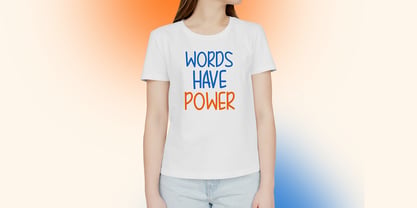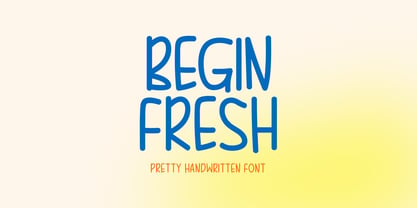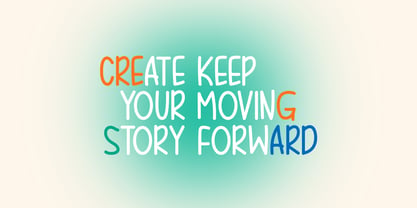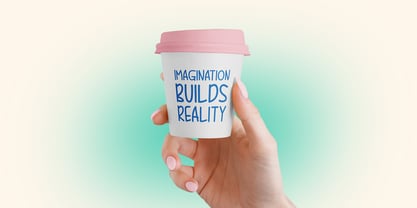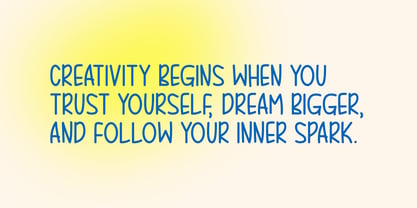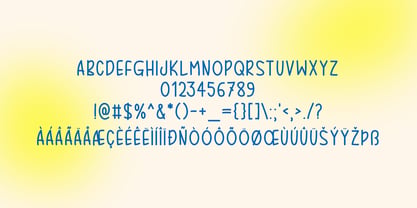
Begin Fresh
by Seemly Fonts
The Begin Fresh Font Family was designed by Md. Sohail Bhuiyan and published by Seemly Fonts. Begin Fresh contains 1 styles. More about this family
Begin Fresh is a charming handwritten font that combines elegance with a playful, modern touch. Its flowing strokes and natural style make it an excellent choice for a wide variety of projects, including stationery, logos, apparel, posters, invitations, music covers, and digital graphics. Perfect for adding a personal and creative feel, Begin Fresh brings warmth and character to both print and online designs, making every project stand out with a fresh, handcrafted look.
Designers: Md. Sohail Bhuiyan
Foundry: Seemly Fonts